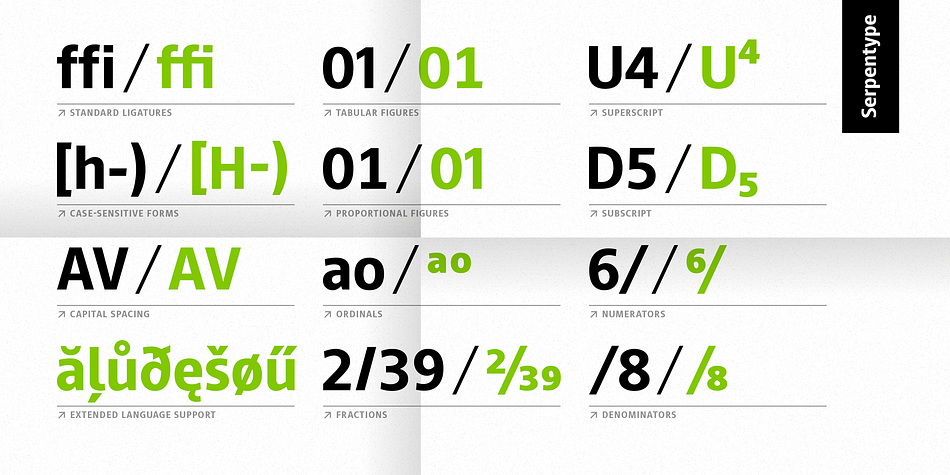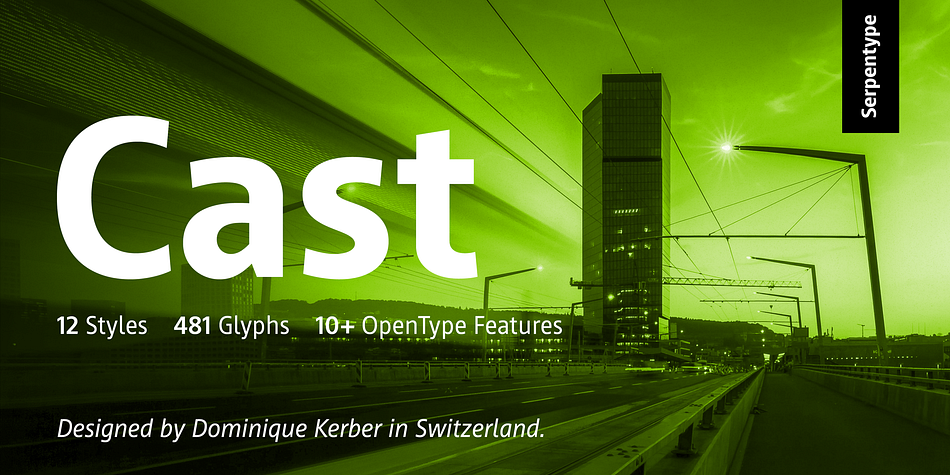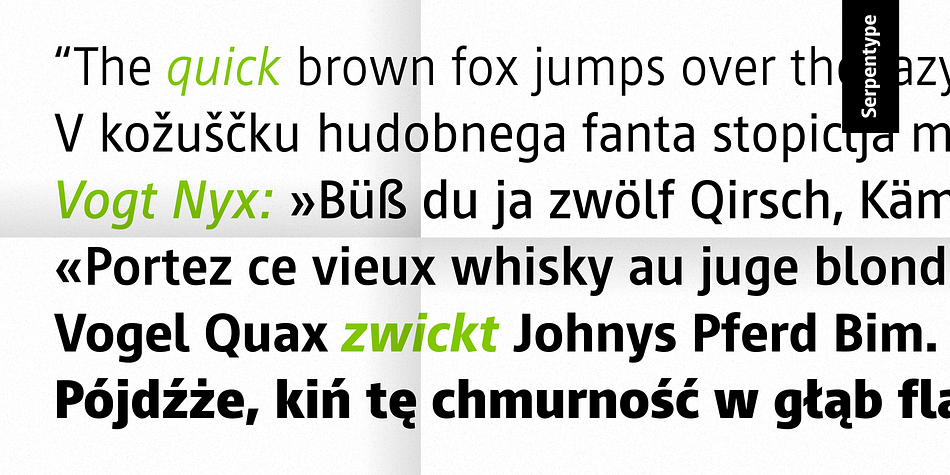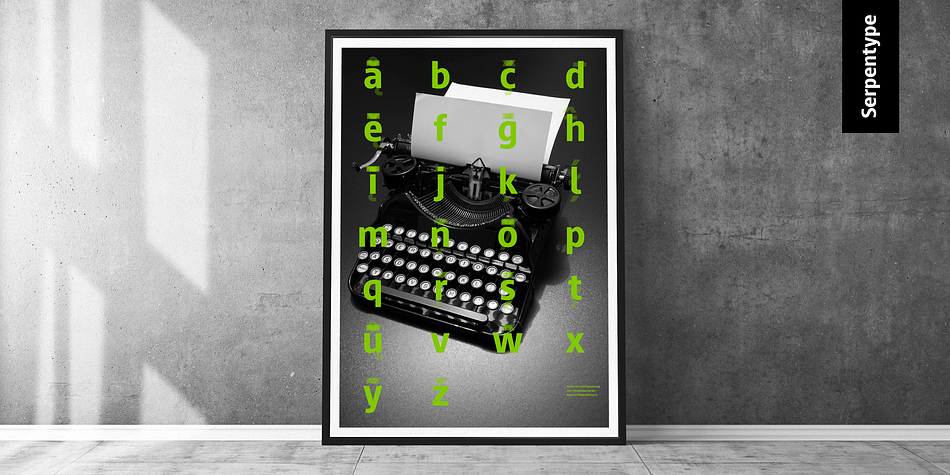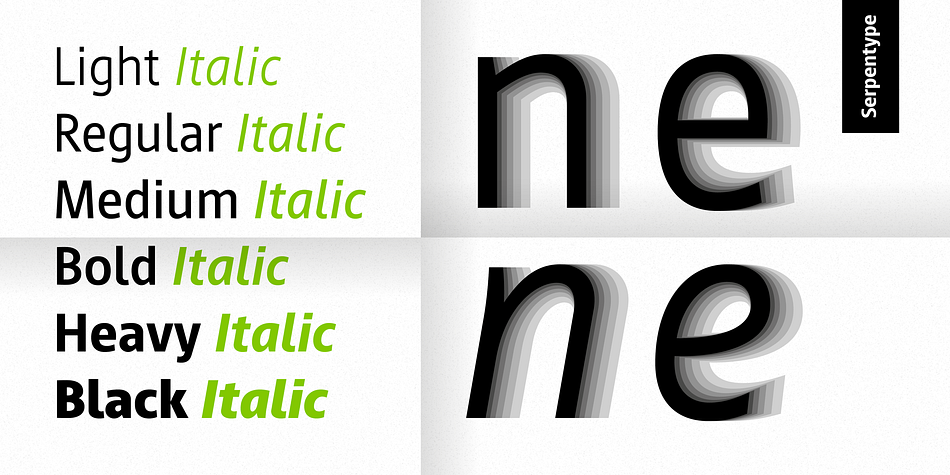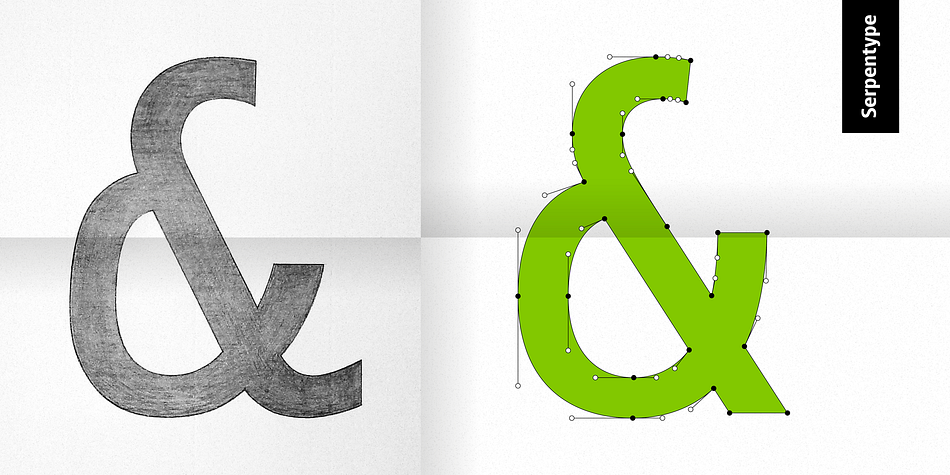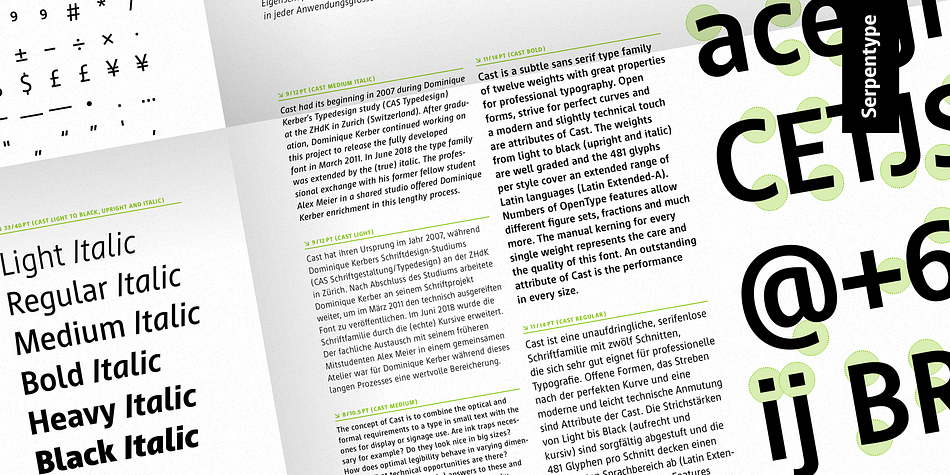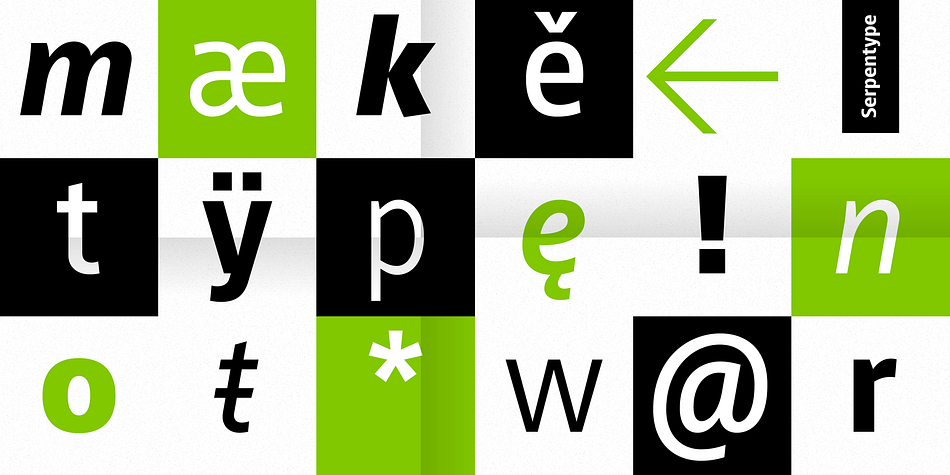
Designed by Dominique Kerber, Cast is a sans serif font family. This typeface has twelve styles and was published by Serpentype.
Cast is a subtle sans serif type family of twelve weights with great properties for professional typography. Open forms, strive for perfect curves and a modern and slightly technical touch are attributes of Cast. The weights from light to black (upright and italic) are well graded and the 481 glyphs per style cover an extended range of Latin languages (Latin Extended-A). Numbers of OpenType features allow different figure sets, fractions and much more. The manual kerning for every single weight represents the care and the quality of this font. An outstanding attribute of Cast is the performance in every size.
Cast had its beginning in 2007 during Dominique Kerber’s Typedesign study (CAS Typedesign) at the ZHdK in Zurich (Switzerland). After graduation, Dominique Kerber continued working on this project to release the fully developed font in March 2011. In June 2018 the type family was extended by the (true) italic. The professional exchange with his former fellow student Alex Meier in a shared studio offered Dominique Kerber enrichment in this lengthy process.
The concept of Cast is to combine the optical and formal requirements to a type in small text with the ones for display or signage use. Are ink traps necessary for example? Do they look nice in big sizes? How does optimal legibility behave in varying dimensions? What technical opportunities are there? Cast gives its own (possible) answers to these and hopefully some other questions in typography.